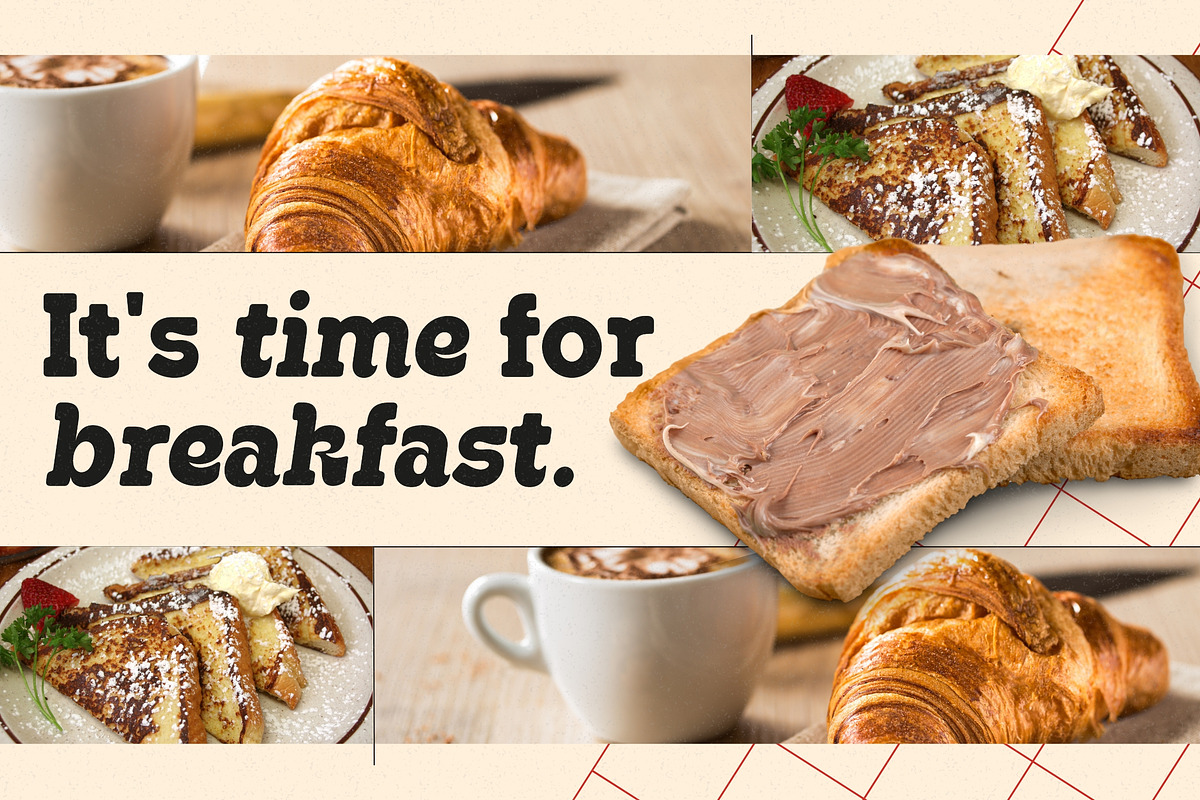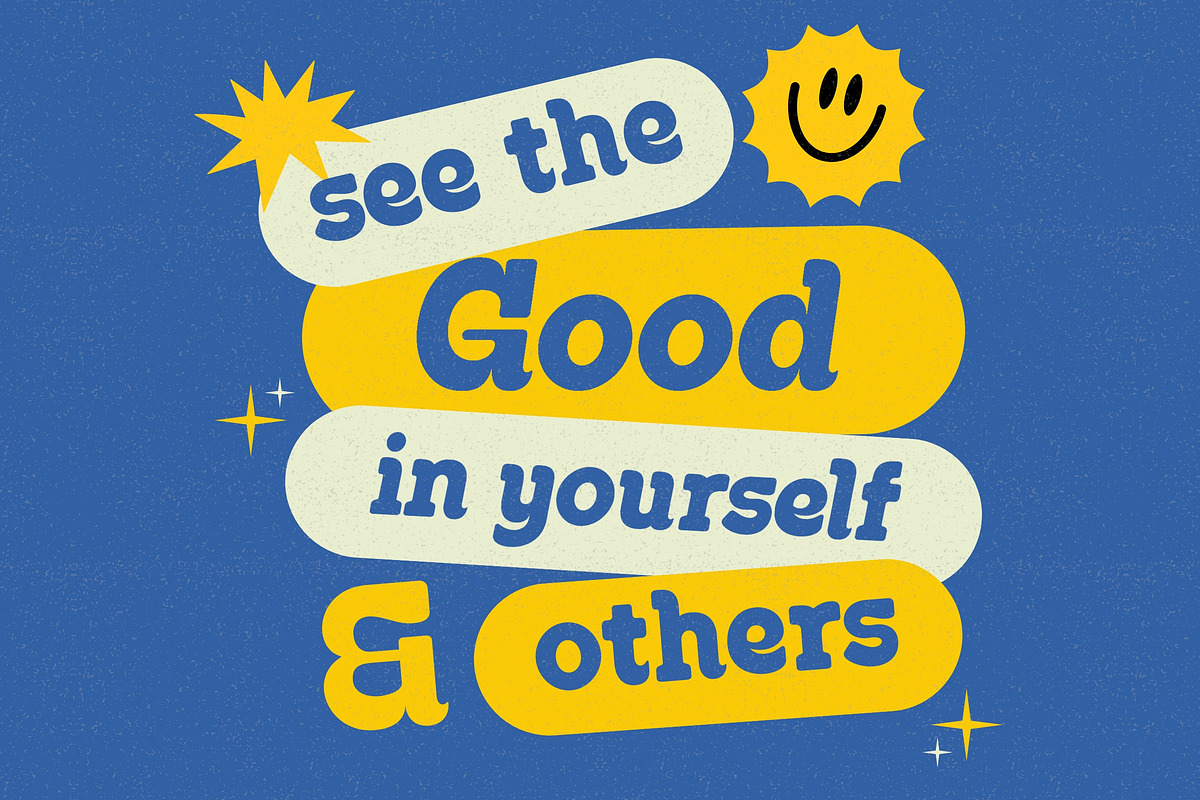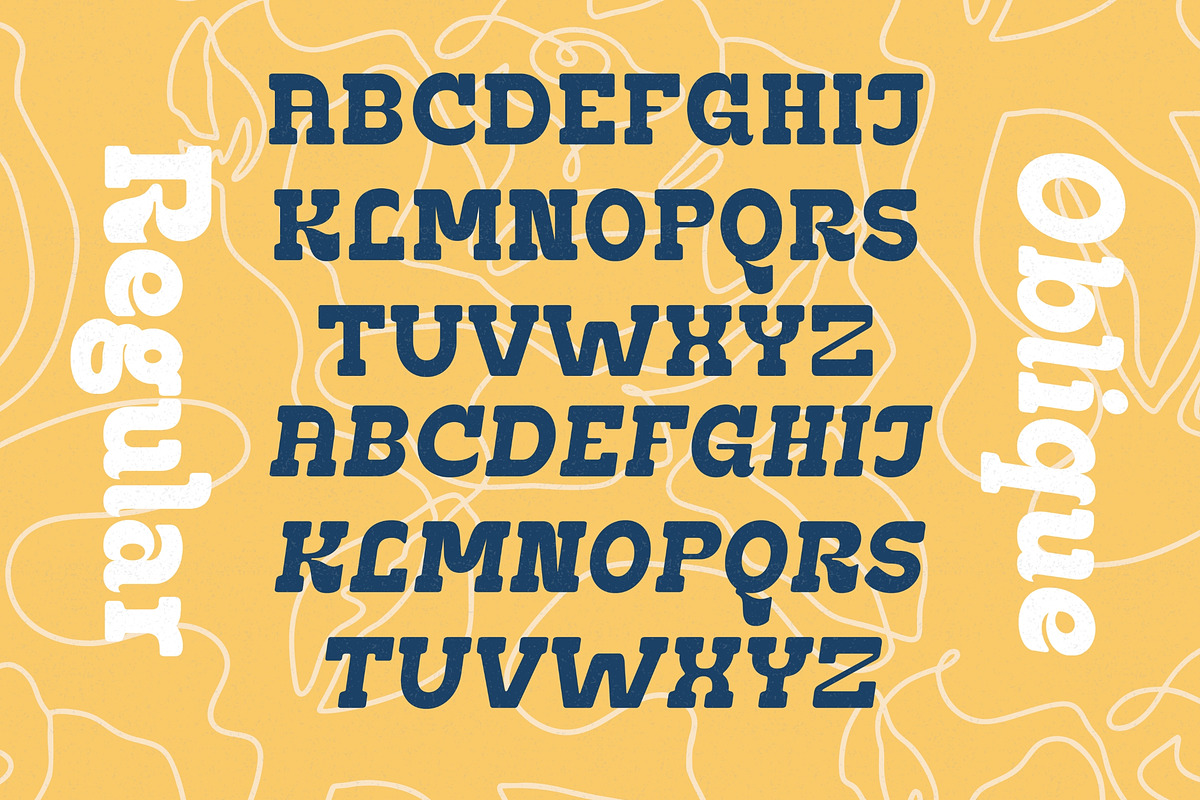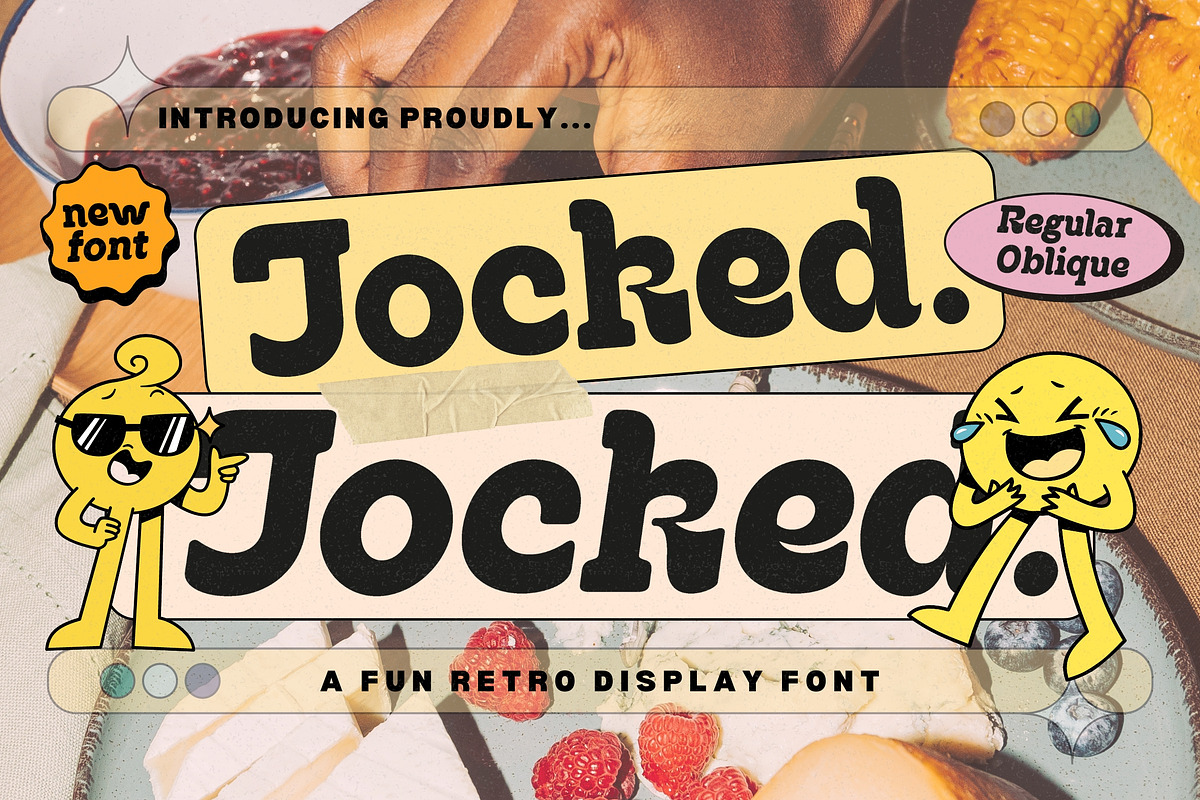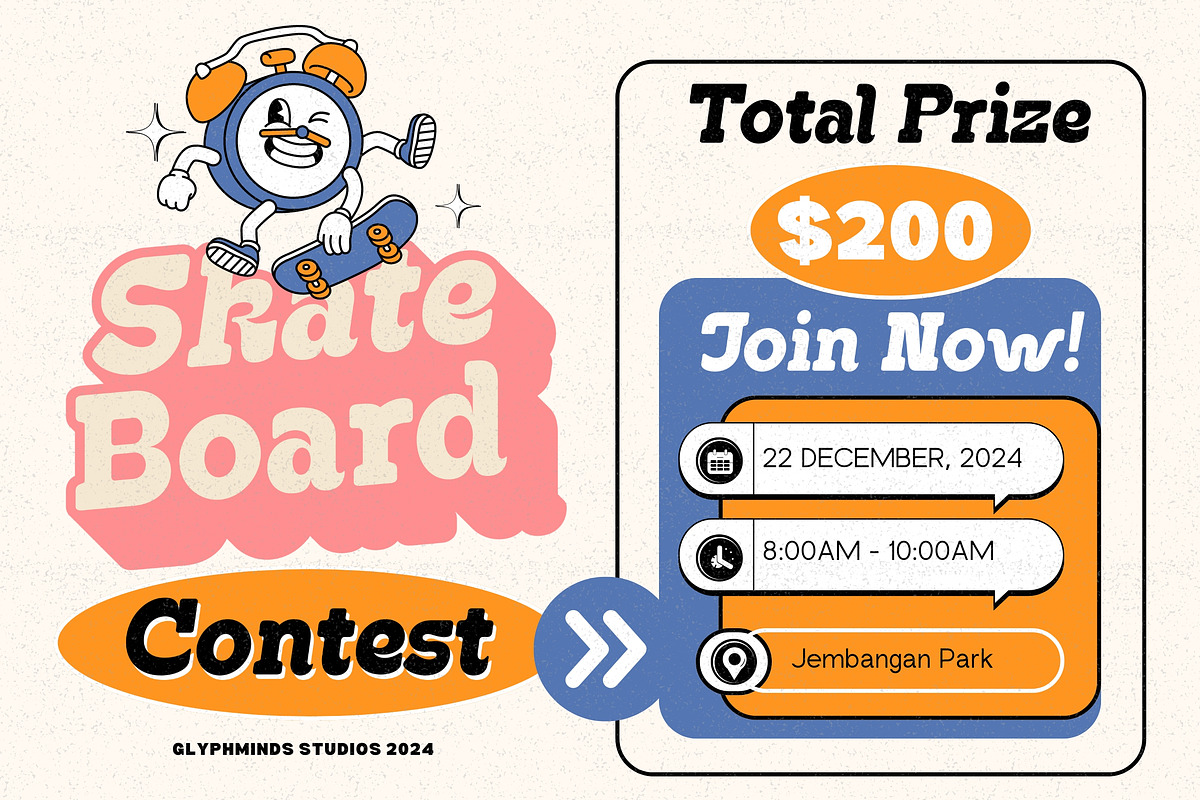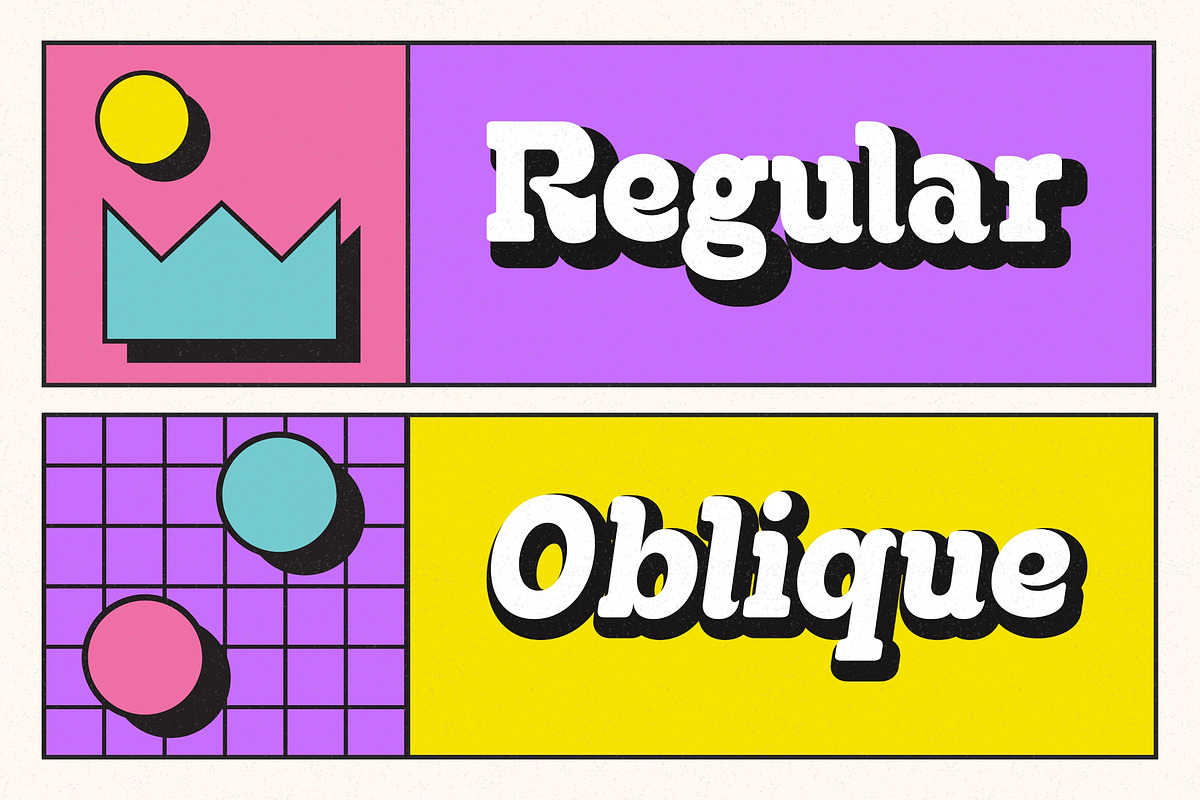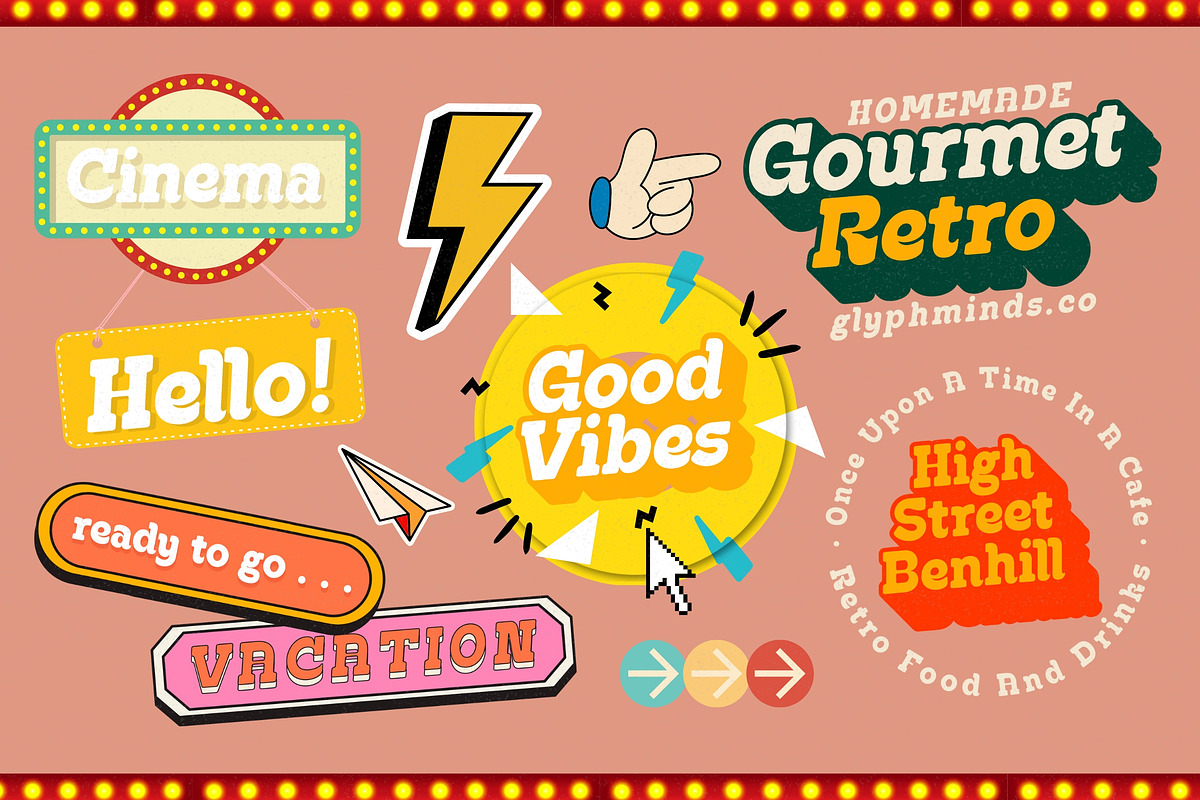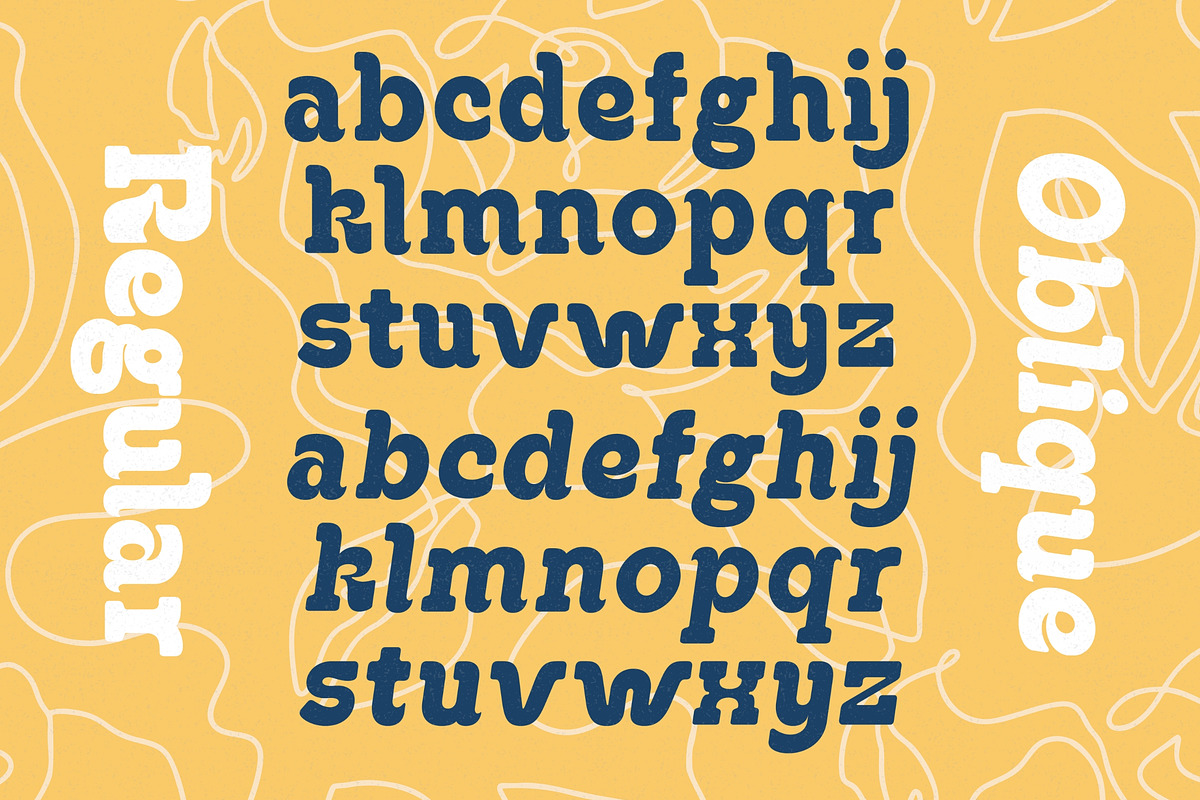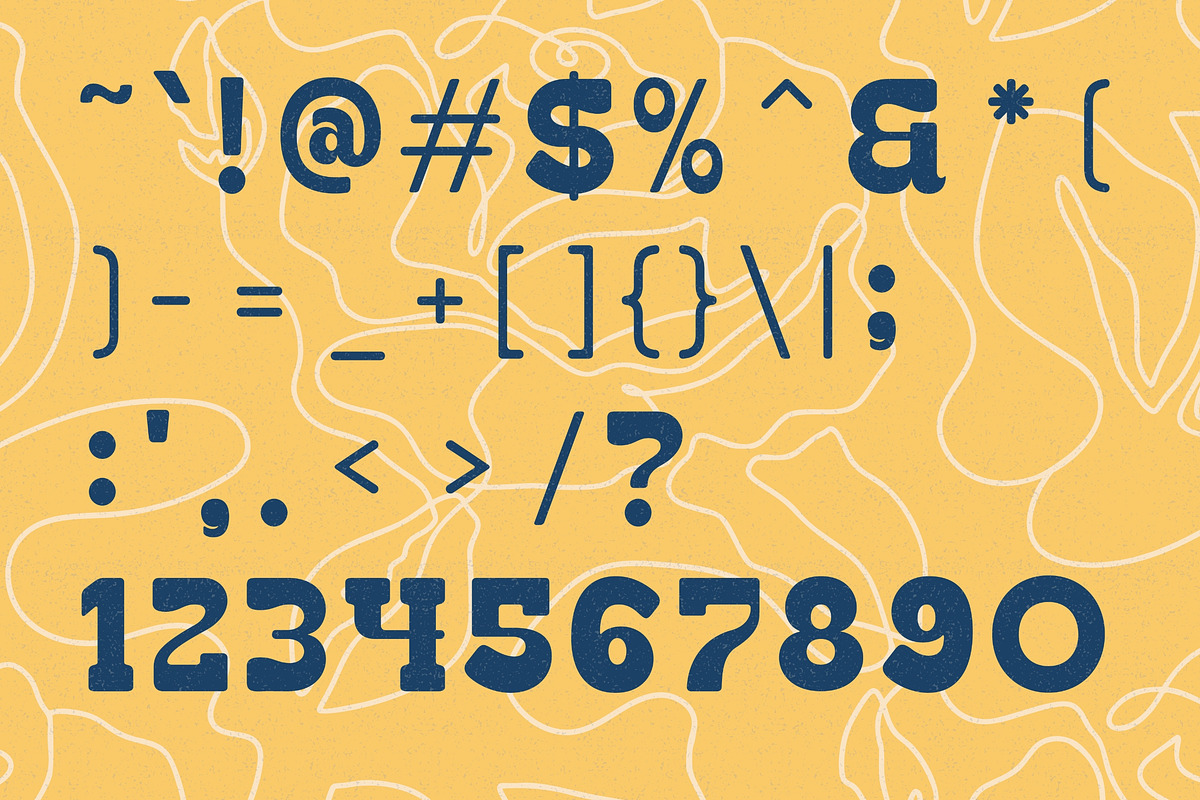
Jocked - Fun Retro Display Font
Introducing Jocked – A Fun Retro Display Font!
Step into a world of nostalgic charm and vibrant energy with Jocked, the ultimate fun retro display font. Designed to bring a playful yet stylish flair to your projects, Jocked combines the bold, dynamic aesthetics of retro typography with a modern twist.
Whether you're looking to create a nostalgic feel or simply want to inject some retro fun into your designs, Jocked is the perfect choice. Embrace the spirit of the past and make your projects pop with this delightful and distinctive font.